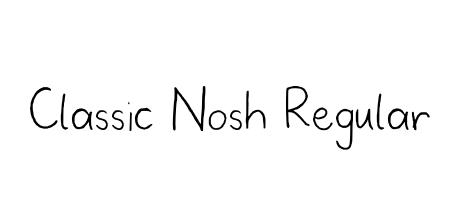
Classic Nosh
By Noshin
Classic Nosh Regular is a casual, handwritten-style font. Its lowercase letters are slightly rounded and possess a gentle, informal feel. The ascenders and descenders are not overly pronounced, giving it a relaxed, unpretentious look. It's friendly and approachable, suitable for informal projects or where a personal touch is desired.